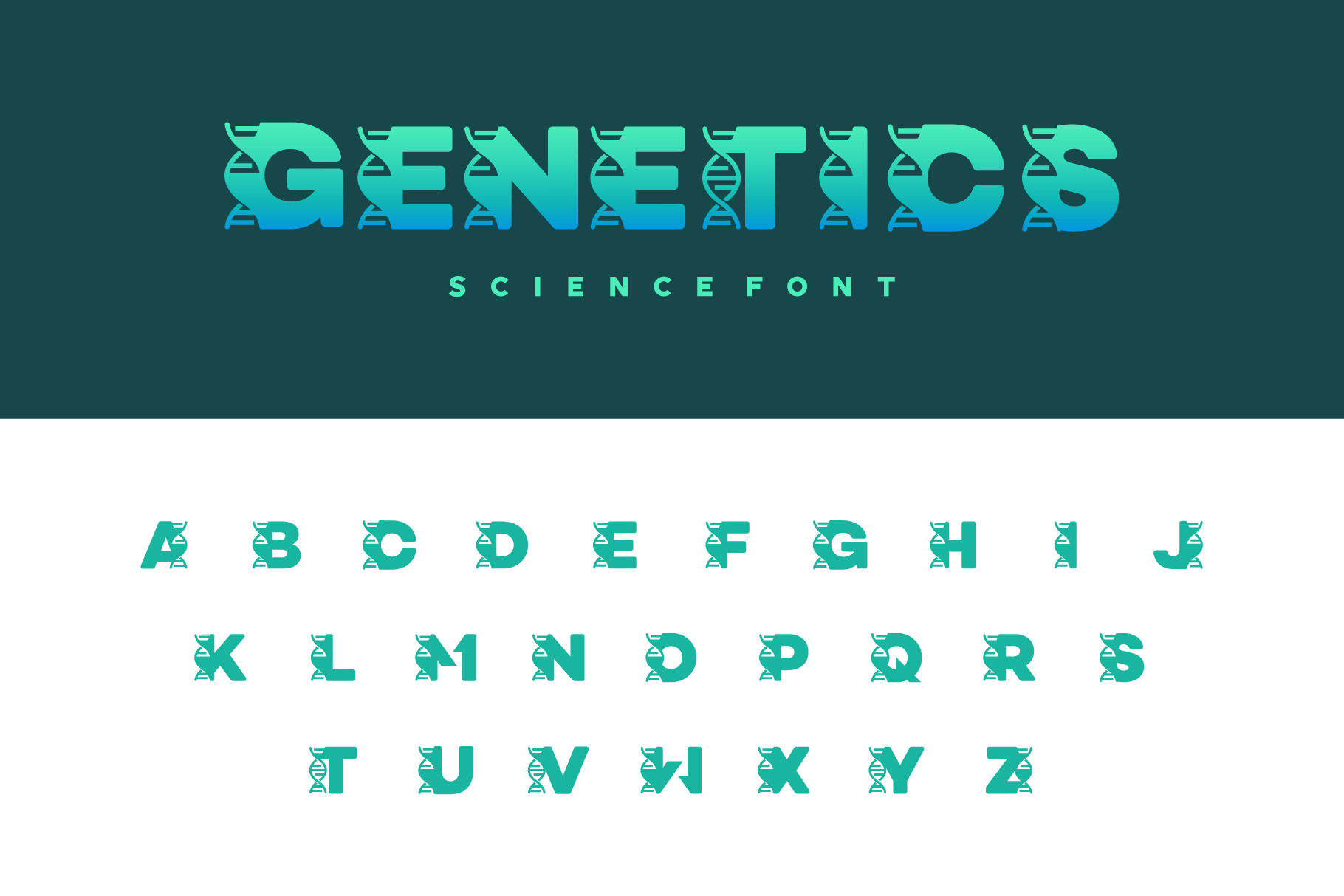
Collection of Science Genetic Font
Collection of Science Genetic Font, Set of DNA Helix Letter alphabets Logo designs icon vector, Chromosome initial Logo Template